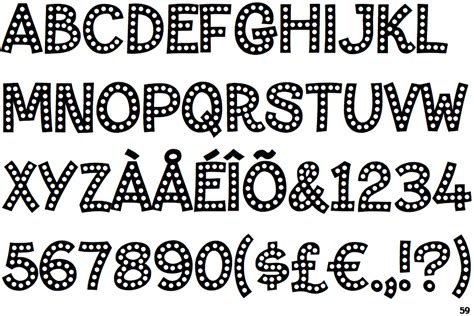
Marquee Font Lower Case . Web best marquee fonts. Click to find the best 24 free fonts in the marquee style.
Web looking for marquee fonts? Web bourton marquee is the perfect font for all your fun designs. Every font is free to download!
Feel free to design ostentatiously vintage designs with these awesome marquee fonts listed. Web bourton marquee is the perfect font for all your fun designs. Click to find the best 24 free fonts in the marquee style. Web best marquee fonts.
Marquee Font Lower Case - Modeled after vintage fairground attraction signs, budmo projects festivity. Click to find the best 24 free fonts in the marquee style. Web bourton marquee is the perfect font for all your fun designs. With a variety of styles to choose from, you're sure. Web best marquee fonts.
Marquee Font Lower Case - With a variety of styles to choose from, you're sure. Web looking for marquee fonts? In this article, we will share 21 of the best marquee fonts and effects that you can find at envato elements and graphicriver. Web best marquee fonts. Web collection of fonts for marquee letter fonts.
Marquee Font Lower Case - In this article, we will share 21 of the best marquee fonts and effects that you can find at envato elements and graphicriver. Click to find the best 24 free fonts in the marquee style. Feel free to design ostentatiously vintage designs with these awesome marquee fonts listed. Web best marquee fonts. Modeled after vintage fairground attraction signs, budmo projects.
Marquee Font Lower Case - Collection of fonts for marquee fonts. Web collection of fonts for marquee letter fonts. Click to find the best 24 free fonts in the marquee style. With a variety of styles to choose from, you're sure. Web best marquee fonts.
Marquee Font Lower Case - Web looking for marquee fonts? The bourton marquee font was designed by kimmy. Web collection of fonts for marquee letter fonts. Collection of fonts for marquee fonts. Web best marquee fonts.
Marquee Font Lower Case - The bourton marquee font was designed by kimmy. Web best marquee fonts. Modeled after vintage fairground attraction signs, budmo projects festivity. Web looking for marquee fonts? Web collection of fonts for marquee letter fonts.
Marquee Font Lower Case - Web collection of fonts for marquee letter fonts. Feel free to design ostentatiously vintage designs with these awesome marquee fonts listed. Modeled after vintage fairground attraction signs, budmo projects festivity. Collection of fonts for marquee fonts. Web looking for marquee fonts?
Marquee Font Lower Case - Feel free to design ostentatiously vintage designs with these awesome marquee fonts listed. Web best marquee fonts. The bourton marquee font was designed by kimmy. In this article, we will share 21 of the best marquee fonts and effects that you can find at envato elements and graphicriver. Every font is free to download!
Marquee Font Lower Case - Feel free to design ostentatiously vintage designs with these awesome marquee fonts listed. Web best marquee fonts. Modeled after vintage fairground attraction signs, budmo projects festivity. Every font is free to download! Click to find the best 24 free fonts in the marquee style.
Marquee Font Lower Case - Web bourton marquee is the perfect font for all your fun designs. Web looking for marquee fonts? Click to find the best 24 free fonts in the marquee style. Every font is free to download! Collection of fonts for marquee fonts.
Marquee Font Lower Case - Collection of fonts for marquee fonts. Web collection of fonts for marquee letter fonts. The bourton marquee font was designed by kimmy. With a variety of styles to choose from, you're sure. Web looking for marquee fonts?
Marquee Font Lower Case - In this article, we will share 21 of the best marquee fonts and effects that you can find at envato elements and graphicriver. With a variety of styles to choose from, you're sure. Feel free to design ostentatiously vintage designs with these awesome marquee fonts listed. Click to find the best 24 free fonts in the marquee style. Web best.
Marquee Font Lower Case - Every font is free to download! Click to find the best 24 free fonts in the marquee style. Collection of fonts for marquee fonts. Web looking for marquee fonts? Web collection of fonts for marquee letter fonts.
Marquee Font Lower Case - Collection of fonts for marquee fonts. Web looking for marquee fonts? Web collection of fonts for marquee letter fonts. The bourton marquee font was designed by kimmy. Every font is free to download!
Marquee Font Lower Case - Feel free to design ostentatiously vintage designs with these awesome marquee fonts listed. Modeled after vintage fairground attraction signs, budmo projects festivity. Web bourton marquee is the perfect font for all your fun designs. Web looking for marquee fonts? In this article, we will share 21 of the best marquee fonts and effects that you can find at envato elements.
Marquee Font Lower Case - The bourton marquee font was designed by kimmy. In this article, we will share 21 of the best marquee fonts and effects that you can find at envato elements and graphicriver. Every font is free to download! Web collection of fonts for marquee letter fonts. Click to find the best 24 free fonts in the marquee style.